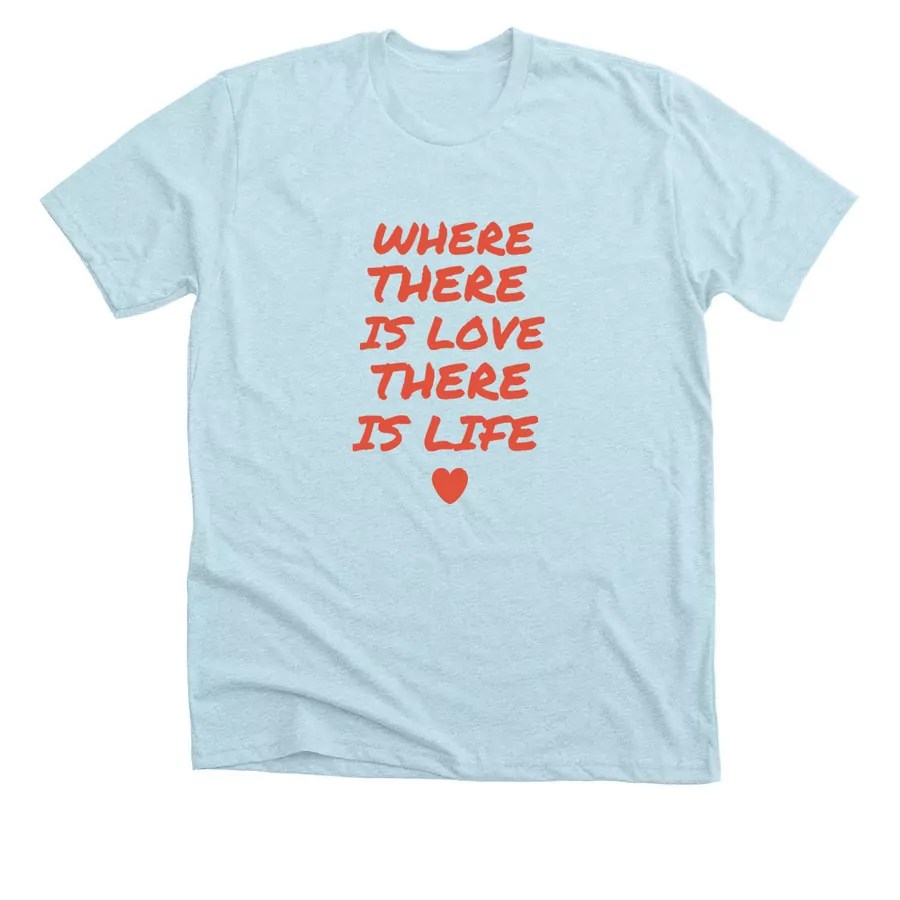
Fonts For T Shirts. The rounded edges of the font soften the text a little, while the wide spacing makes the words easy to read. We’ve taken on the task of cultivating 25 of the best free commercial fonts the internet has to offer, just for you.
Aptly Named ‘Sports’, This Is A Bold, Font That Will Really Make Your Design Stand Out.
This is no small feat. One that looks great in a certain shade may look hideous in others. This font would work particularly well for football themed shirts.
It's Perfect For Designs That Are Serious, Rather Than Whimsical.
Even more rounded than snacker,. 1001 free fonts offers a huge selection of free fonts. They are usually clear, plain, and simple.
Sometimes One Sleek, Minimalistic Font Is Worth A Thousand Words.
Designed by philippe moesch, sabo is available for free download in otf format. Classics (baskerville, futura, garamond) alongside hot new fonts (brice, moneta,novera). Every font is free to download!
The rounded edges of the font soften the text a little, while the wide spacing makes the words easy to read. With over 3000 fonts & 612 families is located in nagoya, japan—founded in 2001 by raymond larabie in canada. Every font is free to download!
If You Hate Tnr As Much As We Do, This Shirt Is For You!
Containing both uppercase and lowercase letters, sports is extremely versatile. You can use all of these fonts to enhance your designs without worry! You can use it for free with personal projects.